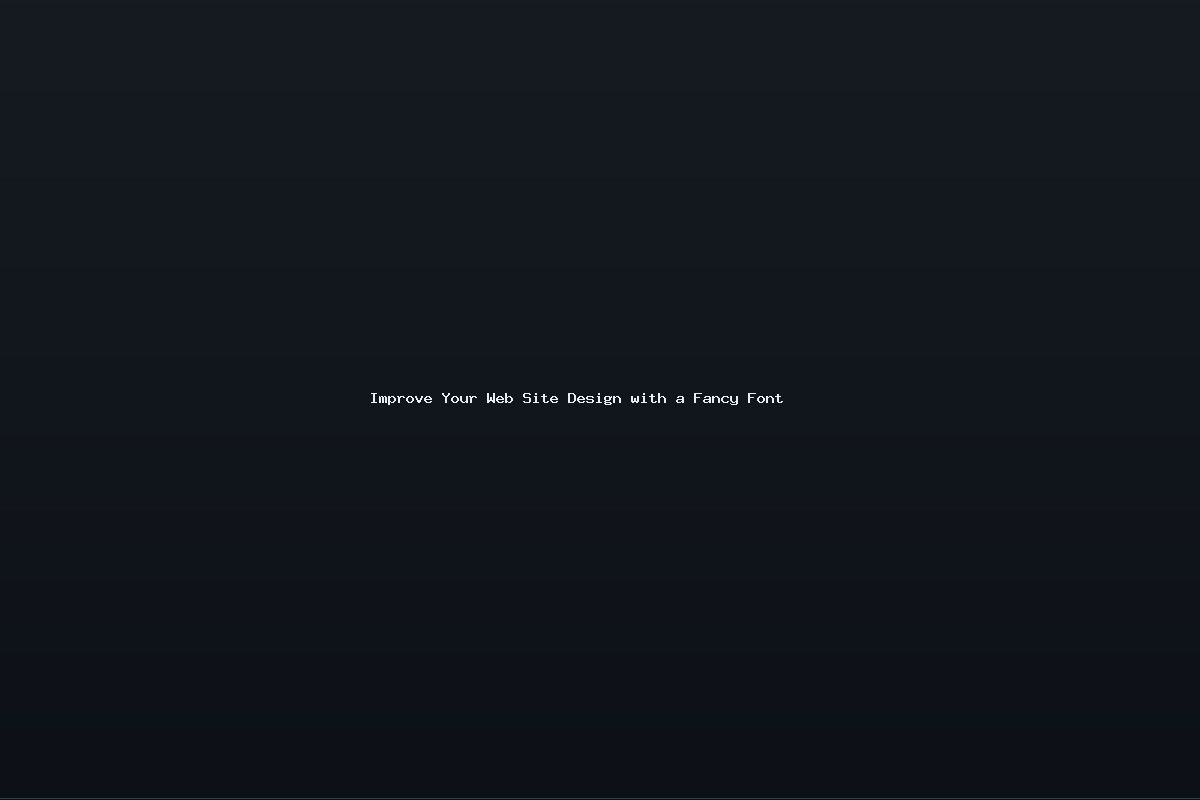
The Invisible Font Gap: Why Your Text May Lose Its Flair
When you’re designing a website, the first thing that often grabs your eye is a striking typeface. You choose a font that feels modern, elegant, or playful, and you test it in a browser on your own machine. Everything looks perfect until you hit the “preview on other devices” button or share the page with a friend. Suddenly, that fancy typeface has vanished, replaced by an ordinary sans‑serif that your visitor’s computer happens to have. This happens because most operating systems ship with a limited set of system fonts, and the one you pick may not be among them. For instance, a designer who loves the classic
Century Gothic might find it rendered as plain Arial on a visitor’s Windows 98 machine, where Century Gothic is simply missing. The result is a jarring visual mismatch that undermines the design you intended.
Browsers rely on a “font stack” specified in CSS to decide which typeface to display. If the first font in the stack is unavailable on the client’s system, the browser automatically falls back to the next one. Developers often write code like
font-family: "CustomFont", "Arial", sans-serif;, hoping the custom font will load. But when that font isn’t installed locally, the fallback kicks in immediately, and the visitor sees a completely different look. Because these fallbacks are silent, many designers never notice the problem until user feedback points it out. Inconsistent typography not only looks unprofessional; it can also impair readability and dilute brand identity.
The visual distortion created by mismatched fonts can be subtle or dramatic. In some cases, the substitution might be nearly indistinguishable, but more often it introduces differences in weight, spacing, and proportions that break the rhythm of the layout. Headlines that once seemed bold and modern become thin and ordinary, body text loses its subtle curves, and links lose their distinctive style. Users may find the page confusing or harder to read, which can increase bounce rates and hurt conversion goals. For businesses that rely on a strong visual presence, this mismatch can erode trust and brand recall.
Because the web is built on a global network of devices and operating systems, the only way to guarantee your typography appears exactly as you designed it is to serve the font to the browser itself. Two popular solutions exist: the modern
@font-face rule that loads a font file over HTTP, and the legacy technique of rendering the text as an image. The latter, though older, remains a quick fix for designers who want immediate control without dealing with font licensing or server-side configuration. Below we walk through how to convert any local font into a web‑friendly image and embed it seamlessly into your pages.
Turn Any Font Into a Web‑Friendly Image: A Step‑by‑Step Tutorial
Next, add a new text layer and type the words or phrase you want to display on your page. Choose the freshly installed font from the font picker, adjust the point size to match the desired visual weight, and set the color to the exact shade used in your CSS. To maintain sharpness at 72 dpi, make sure your document resolution is set to 72 ppi, which is the standard for screen displays. Once you’re satisfied with the look, export the layer as a GIF or PNG. GIF is preferable when the text is simple and you want a small file size, while PNG offers better quality for richer colors and shadows. After exporting, use a tool like TinyPNG or ImageOptim to compress the file without sacrificing visual fidelity.
Embedding the font image into your HTML is straightforward. Place the image file in the same directory as your CSS or in a dedicated assets folder, and reference it in your markup with an
<img> tag. For example:
<img src="assets/fancy‑title.gif" alt="Welcome to Our Site" style="display:inline-block; vertical-align:top;">. The
alt attribute improves accessibility and SEO, ensuring screen readers convey the text to visually impaired users and search engines index the content. If you want the image to behave like a heading, wrap it in an
<h1> or
<h2> element and apply any necessary padding or margin through CSS. This method guarantees that every visitor - regardless of the fonts installed on their device - sees the typography exactly as you intended, and the small file size keeps page load times minimal.